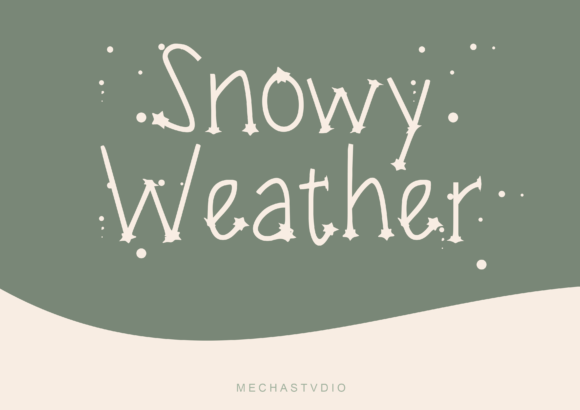
Falling Star Font: The Perfect Addition to Your Typography Collection
Are you tired of using the same old fonts for your designs? Look no further than the Falling Star Font, a playful, cute, and unique display font that’s perfect for adding a touch of magic to your creations. In this article, we’ll dive into the world of Falling Star Font and explore its features, uses, and benefits for designers and crafters.
What is Falling Star Font?
Falling Star Font is a modern, hand-crafted typeface designed to add a whimsical touch to your designs. Its playful and cute appearance makes it perfect for a variety of projects, from logos and branding to stationery, poster designs, and social media posts. With its unique and eye-catching style, Falling Star Font is sure to make your designs stand out from the crowd.
Features of Falling Star Font
Falling Star Font boasts a range of features that make it an excellent addition to any typography collection. Some of its key features include:
- Playful and cute design: Falling Star Font has a fun and whimsical design that’s perfect for creating eye-catching and engaging designs.
- Unique and distinctive style: The font’s unique style sets it apart from other typefaces, making it perfect for designers who want to add a touch of personality to their designs.
- High-quality and versatile: Falling Star Font is designed to be versatile and can be used for a wide range of projects, from digital designs to print materials.
Uses of Falling Star Font
Falling Star Font is an incredibly versatile typeface that can be used for a wide range of projects, including:
- Logos and branding: The font’s playful and cute design makes it perfect for creating unique and memorable logos and branding materials.
- Stationery and paper crafts: Falling Star Font is ideal for creating custom stationery, greeting cards, and other paper crafts.
- Poster designs: The font’s bold and eye-catching style makes it perfect for creating striking poster designs.
- Social media posts: Falling Star Font can be used to add a touch of personality to social media posts and make them stand out from the crowd.
Benefits of Using Falling Star Font
There are many benefits to using Falling Star Font in your designs, including:
- Increased creativity: The font’s unique and playful design can help inspire creativity and add a fresh perspective to your designs.
- Improved brand recognition: Falling Star Font can help you create a distinctive brand identity that sets you apart from others.
- Easier design process: The font’s high-quality and versatile design makes it easy to use and incorporate into your designs.
Tips for Using Falling Star Font
Here are a few tips for getting the most out of Falling Star Font:
- Experiment with different sizes and colors: Don’t be afraid to experiment with different sizes and colors to find the perfect combination for your design.
- Use it sparingly: While Falling Star Font is a beautiful typeface, it can be overwhelming if used too much. Use it sparingly to add a touch of personality to your designs.
- Pair it with other fonts: Falling Star Font can be paired with other fonts to create a unique and eye-catching design.
In conclusion, Falling Star Font is a playful, cute, and unique display font that’s perfect for adding a touch of magic to your designs. With its high-quality and versatile design, it’s an excellent addition to any typography collection. Whether you’re a designer, crafter, or DIY enthusiast, Falling Star Font is sure to become your favorite in no time at all!